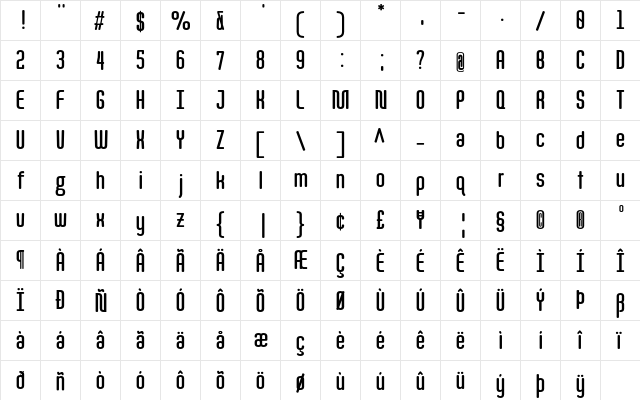
Quota Bold Cond.
Design Context for Quota Typeface
Quota is a composed and adaptable typeface that performs quietly and consistently across a wide range of design contexts. The heavy weight commands attention and anchors typographic hierarchies. Its narrow stance lets it pack a punch even in space-constrained designs.